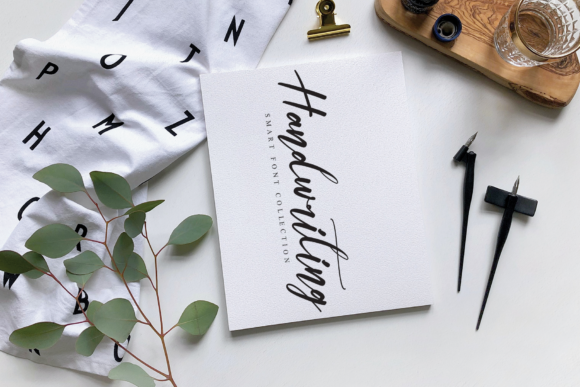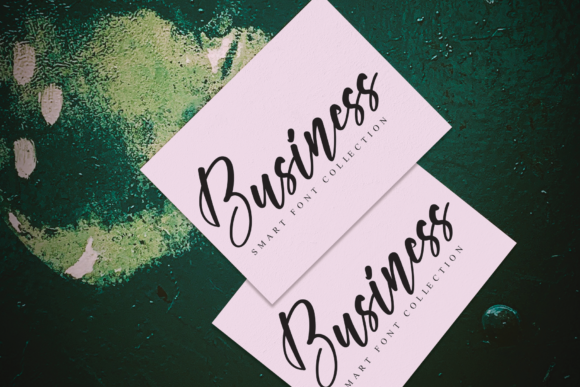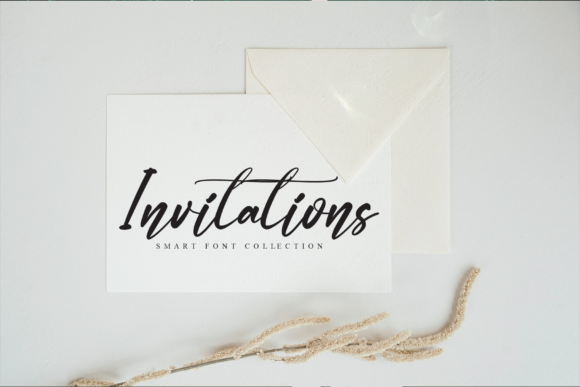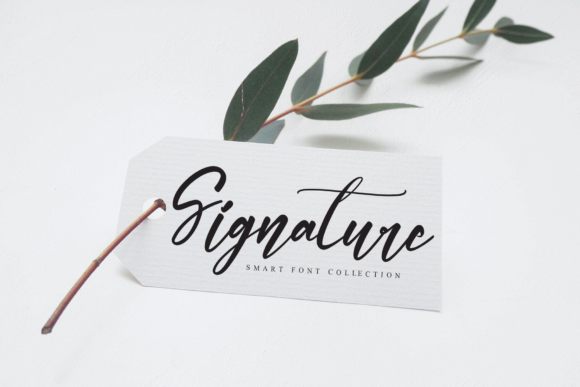
Affectionate Font: Elevate Your Designs with Elegance and Class
In the world of typography, a well-chosen font can make all the difference in the aesthetic and effectiveness of a design. For those seeking a beautiful and refreshing look, the Affectionate font is an excellent choice. This lovely and delicate script font exudes elegance and class, making it perfect for designers and crafters looking to add a touch of sophistication to their work.
The Characteristics of Affectionate Font
Affectionate is a script font that boasts a range of characteristics that set it apart from other fonts. Its delicate and flowing lines create a sense of movement and fluidity, making it ideal for designs that require a touch of elegance. The font’s elegant and refined appearance makes it suitable for a variety of applications, from wedding invitations and event branding to packaging and editorial design.
Crafting a Beautiful and Refreshing Look
Affectionate was particularly crafted for those who need a beautiful and refreshing look to their designs. The font’s unique and stylish appearance is sure to capture the attention of your audience and leave a lasting impression. Whether you’re designing a logo, brochure, or social media graphics, Affectionate is the perfect choice for adding a touch of sophistication and elegance.
Key Features of Affectionate Font
- Delicate and flowing lines: Affectionate’s script font features delicate and flowing lines that create a sense of movement and fluidity.
- Elegant and refined appearance: The font’s elegant and refined appearance makes it suitable for a variety of applications, from wedding invitations and event branding to packaging and editorial design.
- Unique and stylish: Affectionate’s unique and stylish appearance is sure to capture the attention of your audience and leave a lasting impression.
- Easy to read: Despite its delicate nature, Affectionate is easy to read, making it perfect for body text and headings.
Using Affectionate Font in Your Designs
Affectionate is a versatile font that can be used in a variety of design applications. Here are a few ideas to get you started:
- Wedding invitations and event branding: Affectionate’s elegant and refined appearance makes it perfect for wedding invitations, event branding, and other formal events.
- Packaging design: The font’s unique and stylish appearance makes it suitable for packaging design, adding a touch of sophistication and elegance to your products.
- Editorial design: Affectionate is ideal for editorial design, including magazine and newspaper articles, where its elegant and refined appearance can add a touch of class.
- Logo design: The font’s delicate and flowing lines make it perfect for logo design, creating a unique and stylish visual identity for your brand.
Tips for Pairing Affectionate Font with Other Fonts
Pairing Affectionate with other fonts can create a unique and visually appealing combination. Here are a few tips to keep in mind:
- Pair with a bold font: Pairing Affectionate with a bold font can create a striking contrast and add visual interest to your design.
- Choose a complementary font: Choose a font that complements Affectionate’s elegant and refined appearance, such as a classic serif or sans-serif font.
- Experiment with font sizes: Experimenting with font sizes can create a visually appealing hierarchy and add depth to your design.
In conclusion, Affectionate is a lovely and delicate script font that exudes elegance and class. Its unique and stylish appearance makes it perfect for designers and crafters looking to add a touch of sophistication to their work. With its delicate and flowing lines, elegant and refined appearance, and easy readability, Affectionate is an excellent choice for a variety of design applications.
Whether you’re designing a wedding invitation, packaging, or editorial content, Affectionate is sure to elevate your designs and leave a lasting impression on your audience.